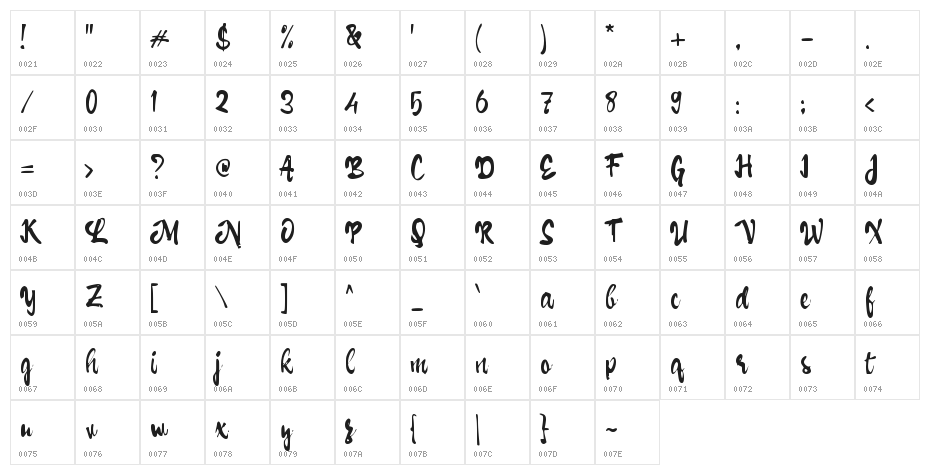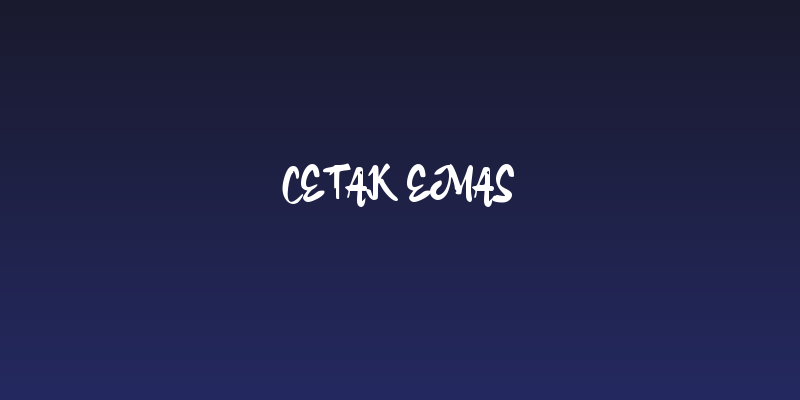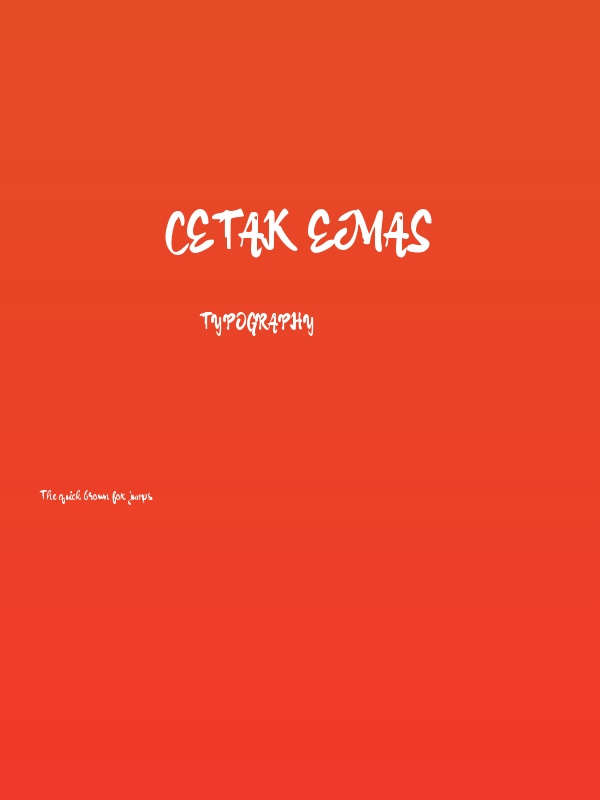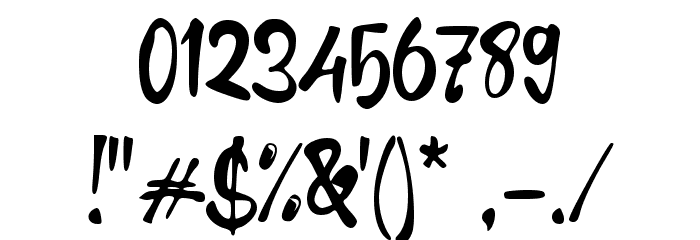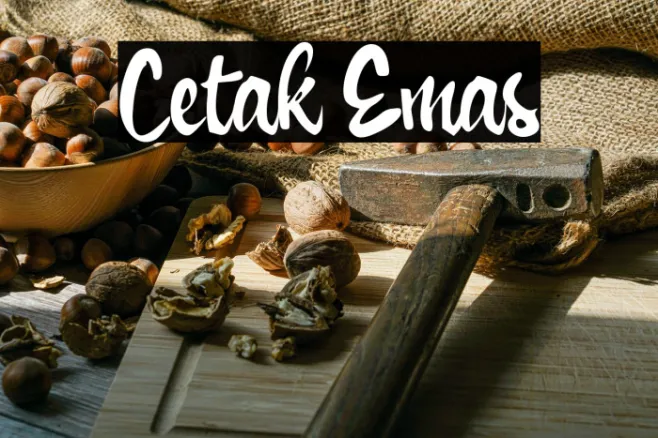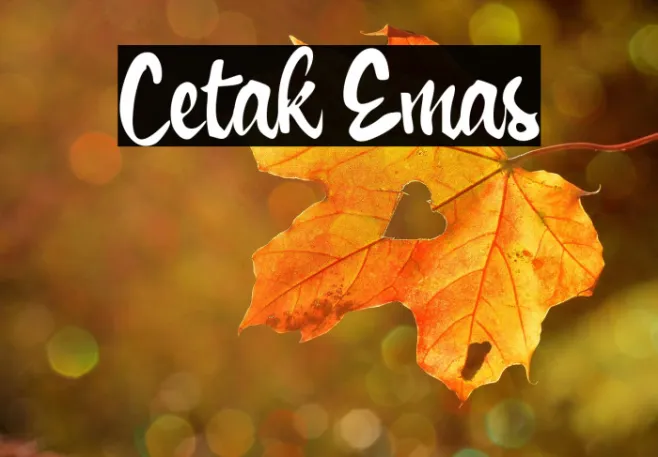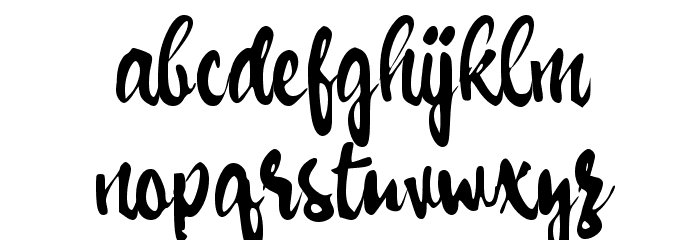
Cetak Emas Font
Cetak Emas Description
This font features a bold and expressive script style with a handwritten appearance. The characters have a fluid and dynamic flow, characterized by thick strokes and rounded edges. The uppercase letters exhibit a sense of movement and flair, while the lowercase letters maintain a consistent and harmonious rhythm. The numerals are bold and easily readable, complementing the overall style. Special characters are integrated seamlessly, maintaining the font's cohesive look. This font is ideal for projects that require a personal touch or a creative, artistic vibe.
| Use Case | Logos, Headlines, Artistic designs |
| Proposed Projects | Ideal for branding, invitations, greeting cards, and artistic projects. |